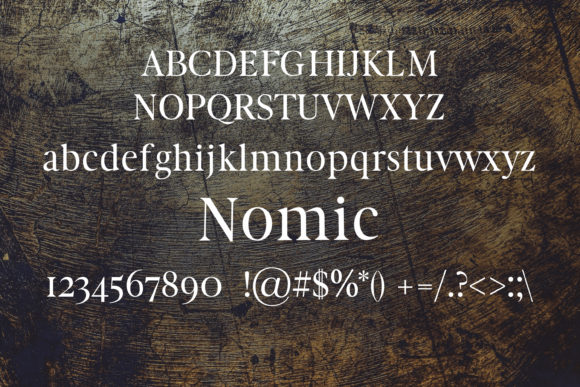
Introduction to Nomic Font
Nomic delivers urban charm and bold looks, making it an extraordinary font.
Nomic delivers urban charm and bold looks, making it an extraordinary font!
Key Features of Nomic Font